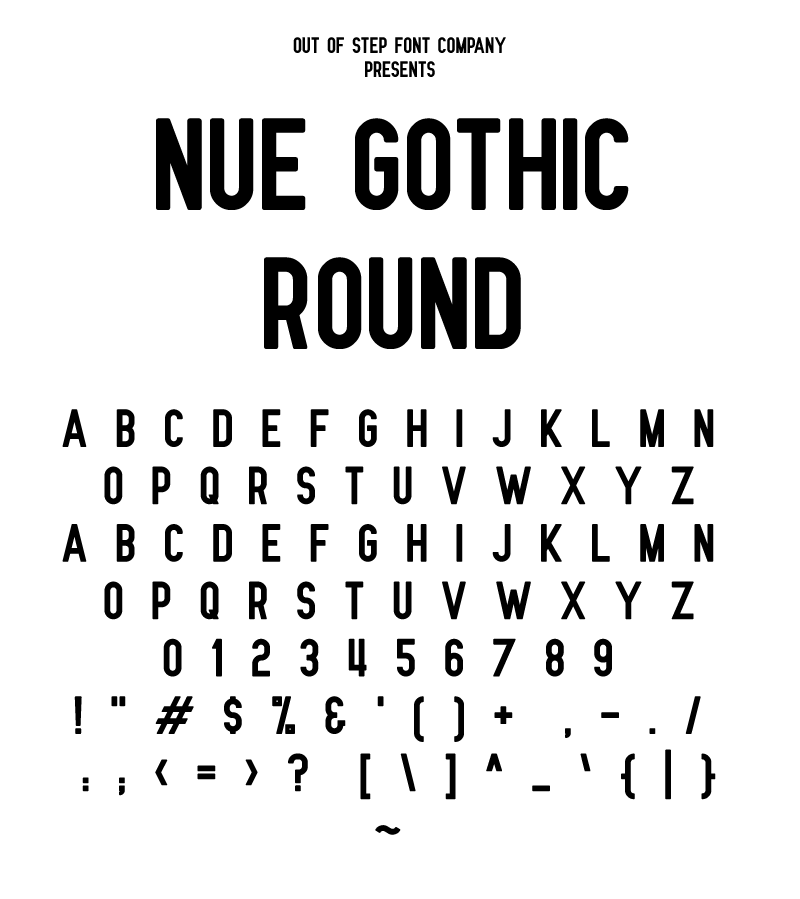
Preview and download Nue Gothic Round Font. Created by Out of Step Font Company in Basic Sans serif styles with 100% Free license.
Nue Gothic Round is a mod of our classic Nue Gothic Regular font. We've expanded the D, H, and N, extended the cross bars on the E and F, and redrawn the K before applying a corner rounding to the whole font. This font is 100% free for all personal and commercial projects. Full versions of Nue Gothic Regular can be found at: https://outofstepfontco.com |